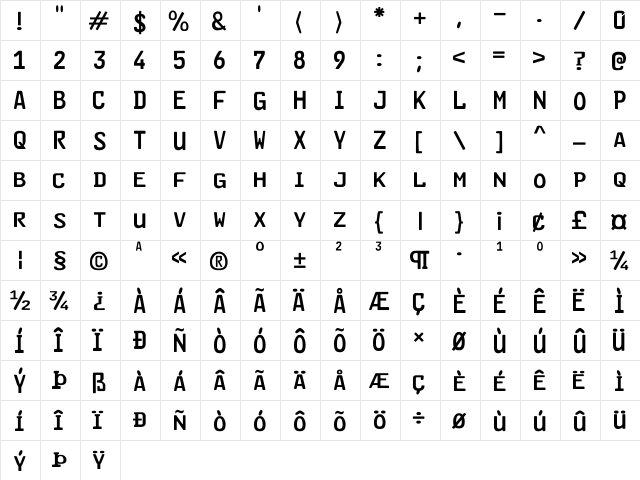
Wagen Regular
| Designer | Luigi Della Rosa |
Design Context for Wagen Typeface
Wagen offers clean, dependable letterforms without strong stylistic allegiance, making it a practical choice for designers who need flexibility.